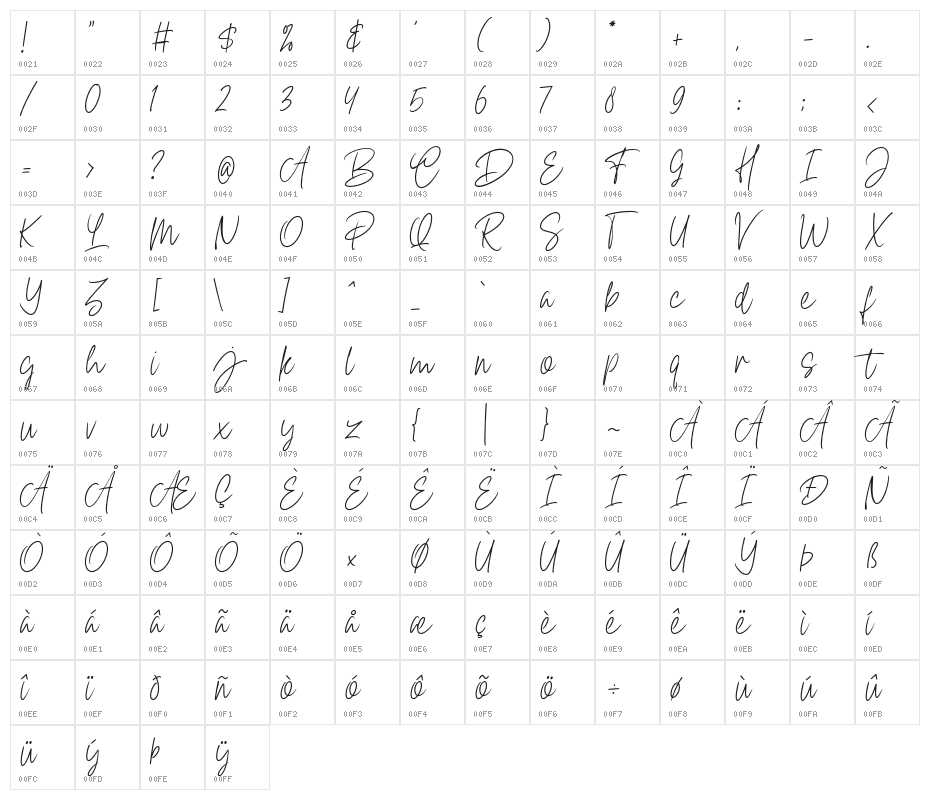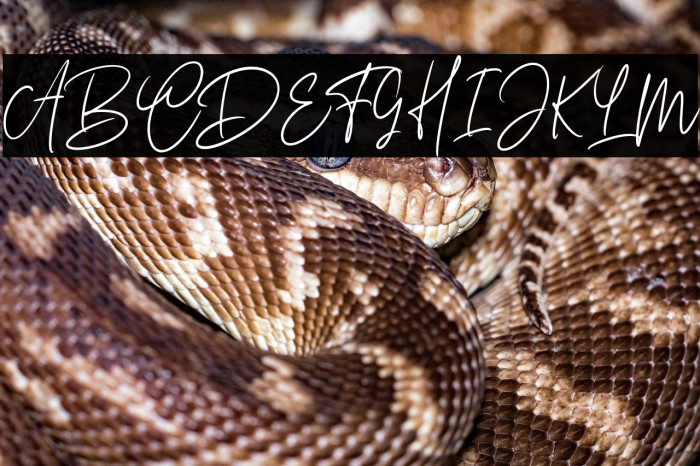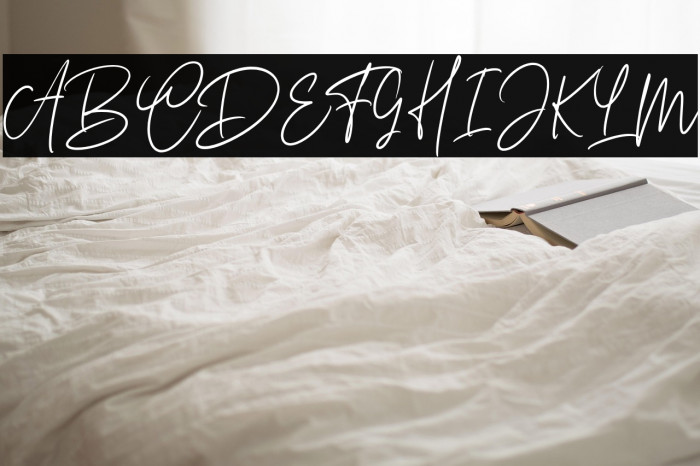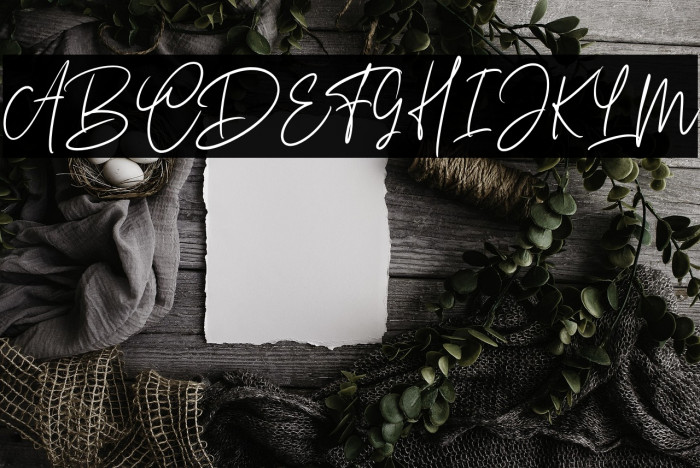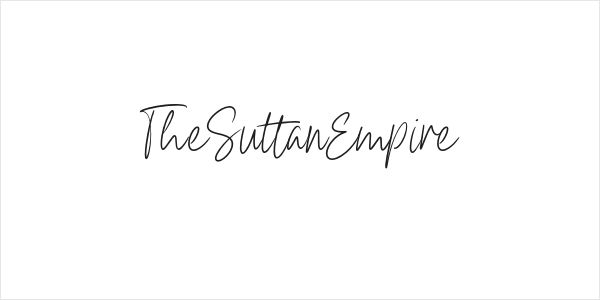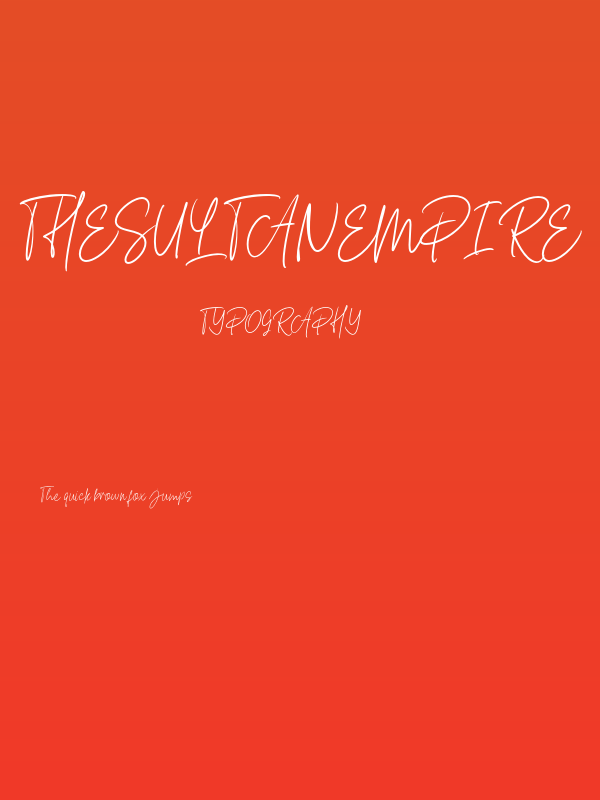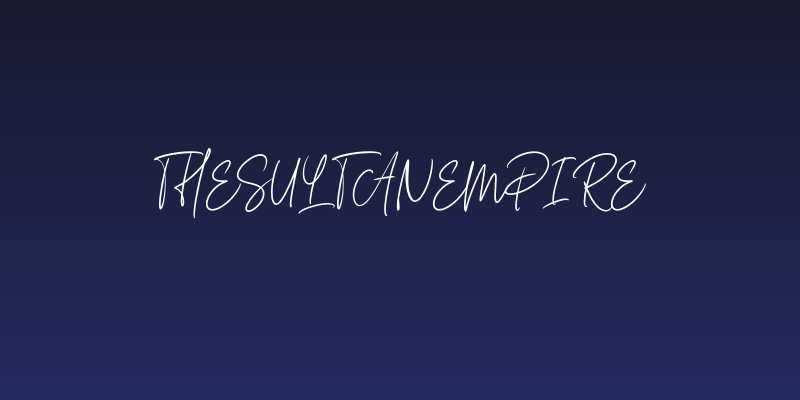
TheSultanEmpire Font
TheSultanEmpire Description
This font features a flowing, cursive style that mimics natural handwriting with a touch of elegance. The letters are interconnected, creating a seamless and fluid appearance. The strokes are smooth and slightly varied in thickness, giving it a dynamic and lively feel. The uppercase letters maintain a consistent height, while the lowercase letters exhibit a playful bounce, adding character and charm. The numerals and special characters are crafted with the same attention to detail, ensuring uniformity across the entire set. This font exudes a sense of sophistication and personal touch, making it suitable for projects that require a handwritten aesthetic.
| Overall Style | Elegant, Handwritten |
| Proposed Projects | Ideal for wedding invitations, personal branding, greeting cards, and artistic projects. |